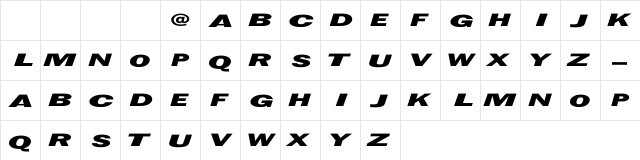
Espionage Regular
Design Context for Espionage Typeface
Espionage is a composed and adaptable typeface that performs quietly and consistently across a wide range of design contexts.